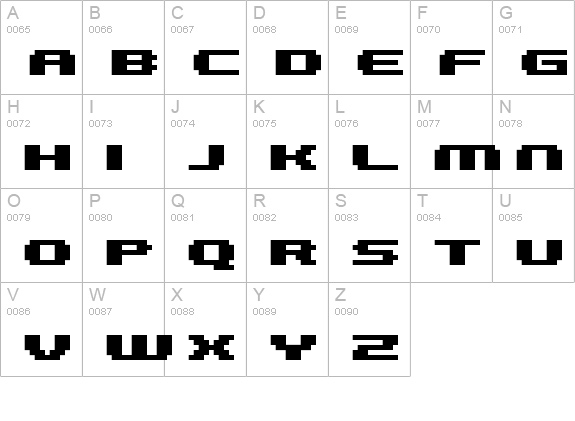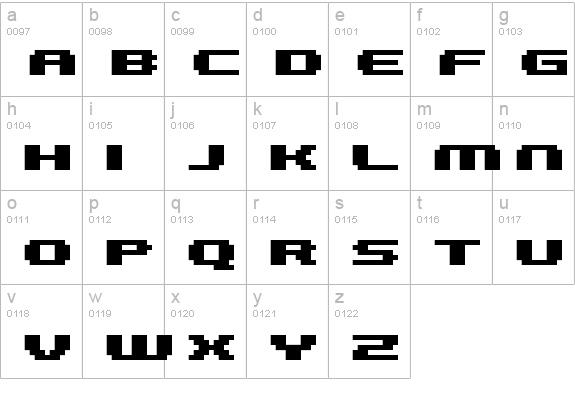
FFF Galaxy Extra Bold is a strong, high-contrast variant in the FFF typeface family \xE2\x80\x94 well suited to headlines, attention-grabbing titles, and strong calls-to-action.
Introducing FFF Galaxy Extra Bold font, a striking and bold typeface that commands attention with its strong, geometric letterforms. This font exudes confidence and modernity, making it perfect for headlines, titles, and branding projects that require a powerful and impactful design. With its extra bold weight, FFF Galaxy demands to be noticed and stands out in any design application. The best part? FFF Galaxy Extra Bold font is available for free download at FontsMarket.com. This means you can easily access this dynamic typeface to elevate your projects without any cost. Whether you're working on a poster, logo, or website design, FFF Galaxy Extra Bold font is a versatile choice that will make a bold statement. Don't miss out on this opportunity to enhance your designs with this eye-catching font. Download it today and unleash its creative potential!